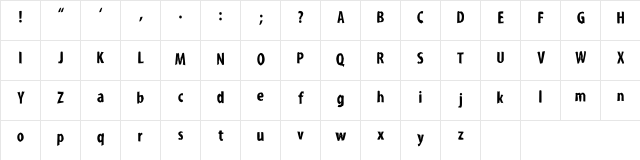
Kroy Font Regular
Design Context for Kroy Font Typeface
Kroy Font is a composed and adaptable typeface that performs quietly and consistently across a wide range of design contexts.